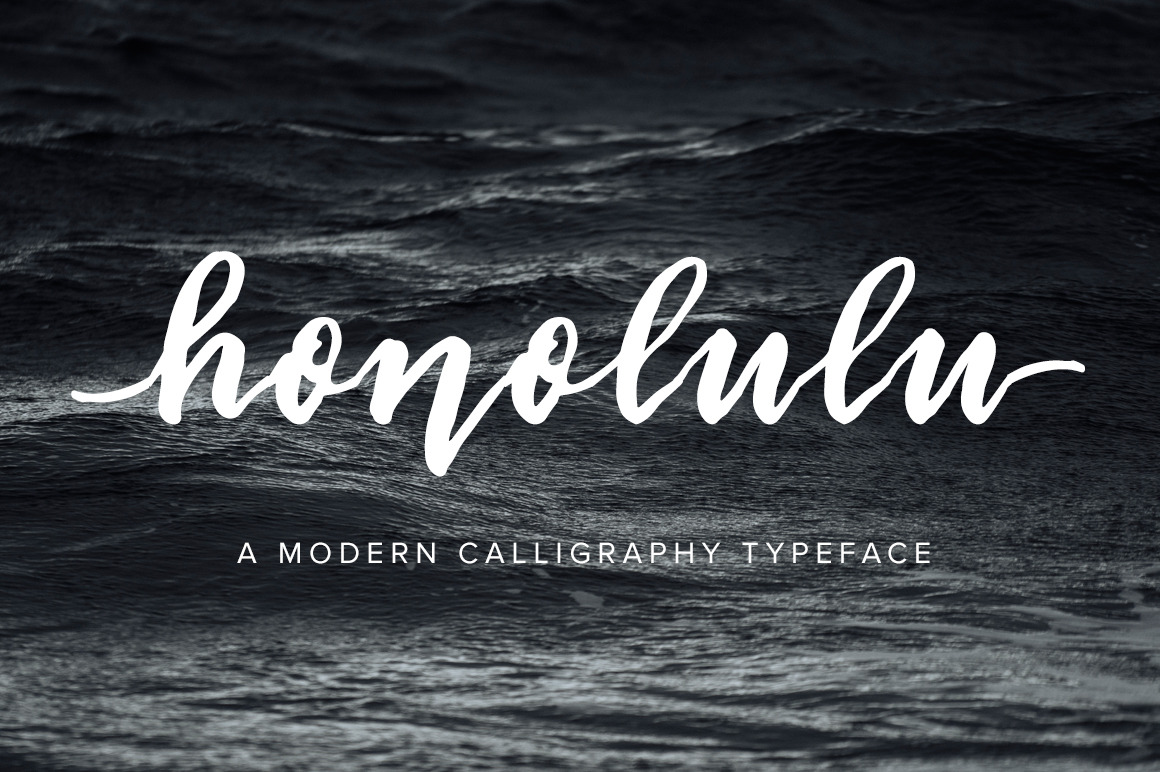
Honolulu | Modern Calligraphy Font
Honolulu is a laid back script font that makes for a beautiful addition to any product, blog post, or invitation. Place your words in "greater than" "less than" brackets to add tails to your beginning and ending lowercase letters for some added flair!
Created using a brush pen
- uppercase & lowercase letters
- numbers & basic punctuation
- beginning and ending letter tails